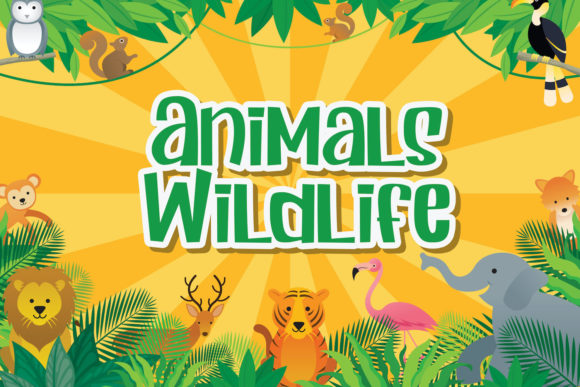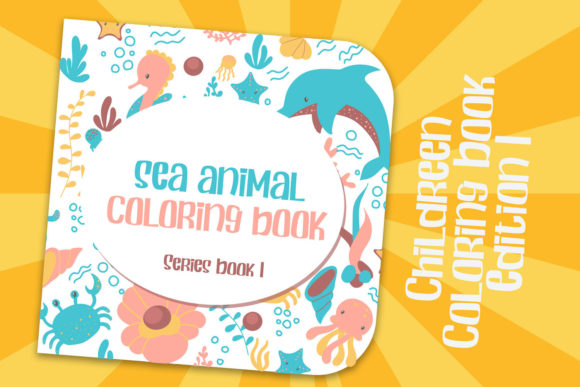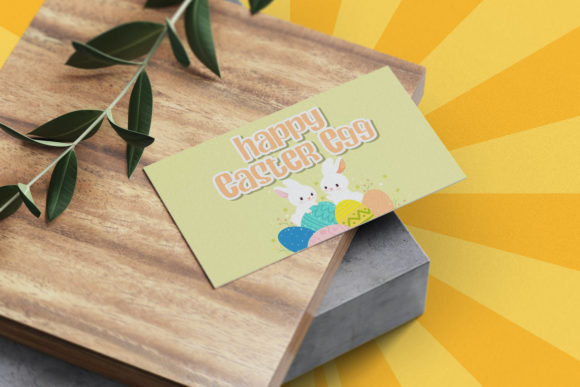
Introduction to Playworld Font
Playworld is a delightful display font that exudes fun, charm, and coolness. Its playful vibe makes it an ideal choice for cartoon-related designs, children’s games, and any project that requires a lovely touch. Whether you’re working on a high-quality design for a client or a personal creative project, this font is sure to be a valuable addition to your design resource arsenal.
Key Features of Playworld Font
- High-quality, unique design ideal for creative projects and designs
- Comprehensive set of characters, including uppercase and lowercase letters, numbers, and symbols
- Perfect for designers, artists, and creatives looking for a distinctive design resource
Honest Review: Playworld Font
Here’s what I like about the Playworld Font: ✨
- The font has a beautiful, playful feel to it, making it perfect for any creative project that requires a touch of whimsy.
However, I did encounter some limitations: ⚠️
- The font may not be suitable for formal or professional projects due to its playful nature.
- The font library is limited, which may not be ideal for designers who need a wide range of font styles.
Overall, I’m impressed with the Playworld Font. It’s a great addition to any designer’s toolkit, and I’d definitely recommend it for creative projects that require a touch of personality. Just be aware of its limitations, and you’ll be all set for a fun and effective design experience.
Tips for Getting the Most Out of Playworld Font
To get the most out of Playworld Font, use it in conjunction with other design elements. This will help create a cohesive and visually appealing design. You can also experiment with different font sizes and colors to add emphasis and interest to your design.
Playworld Font is commonly used in creative projects such as graphic design, digital art, and print design. It’s also used in presentations, reports, and other documents where a high quality and visually appealing font is needed.